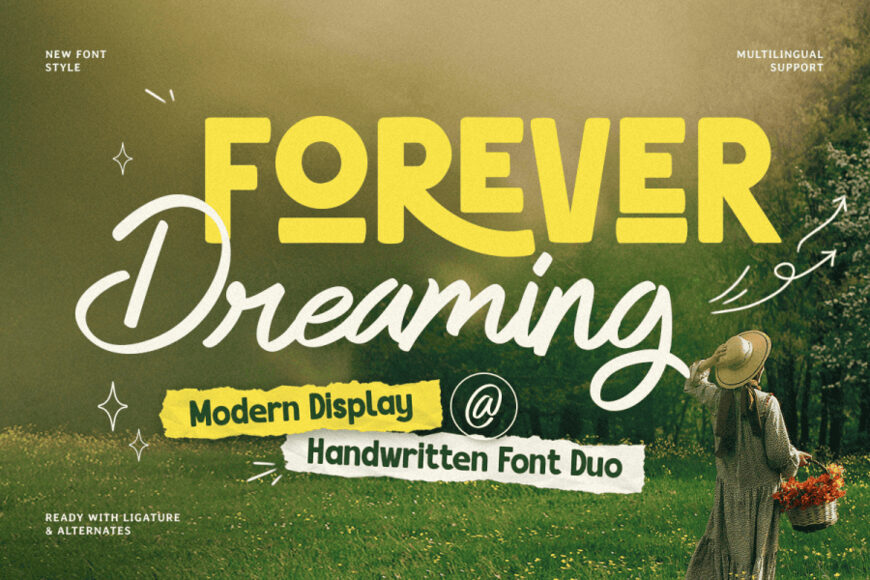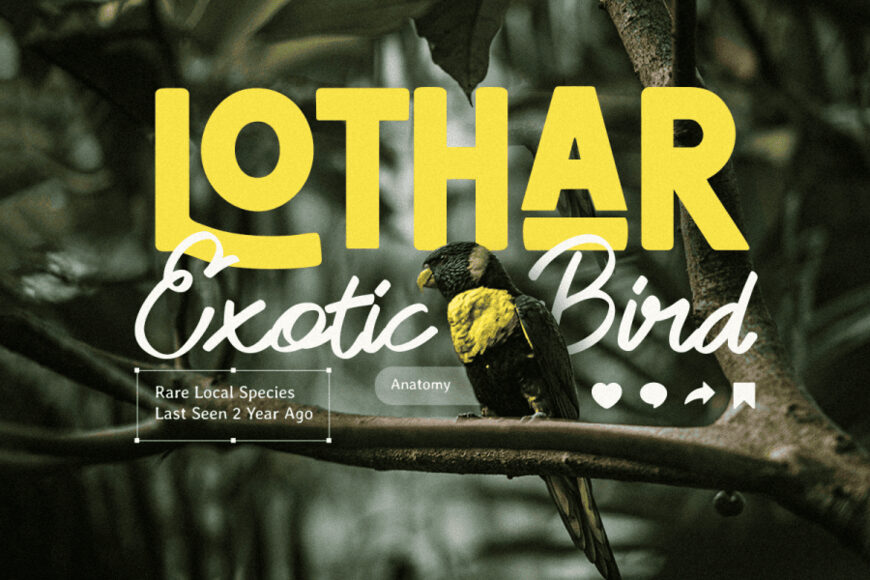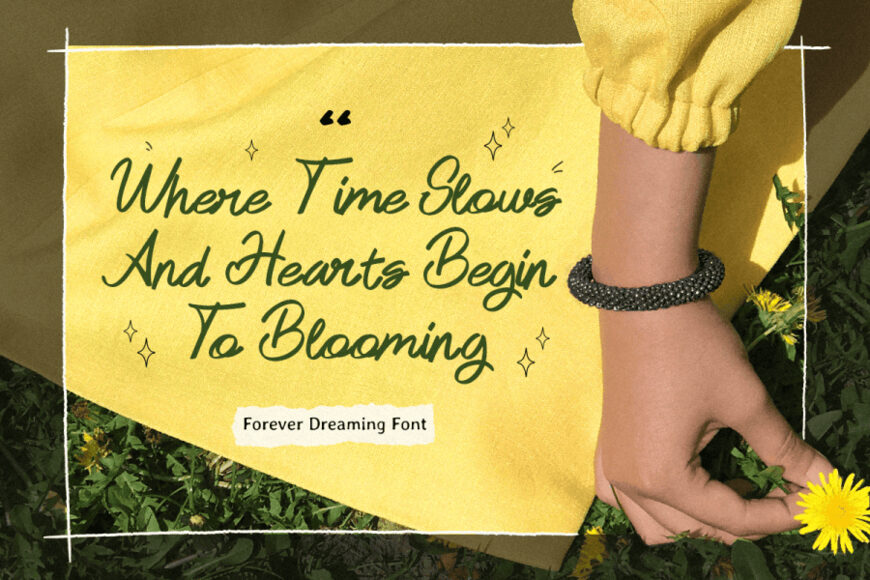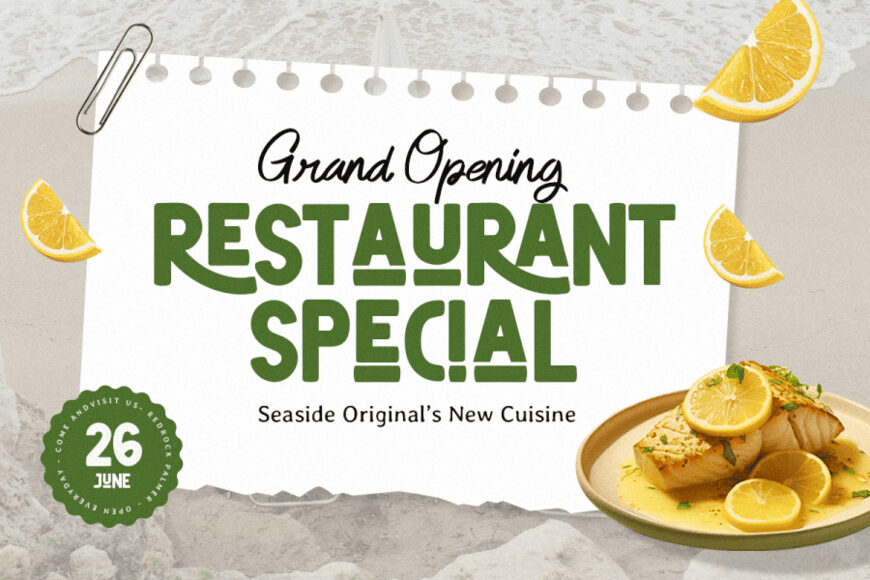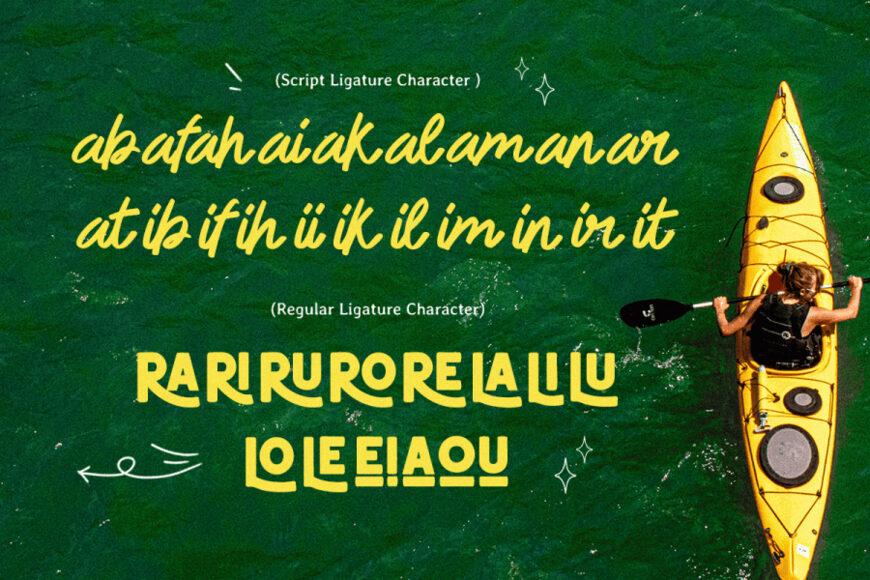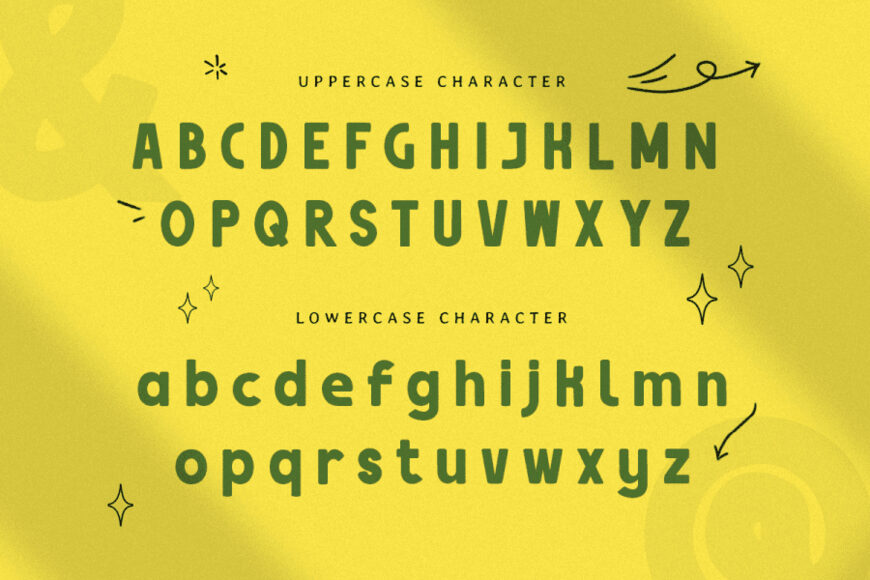
Forever Dreaming Font Duo
Forever Dreaming is a modern display handwritten font duo that combines expressive handwriting with a stylish display character. Designed with a dreamy and artistic feel, this font pairing creates a beautiful balance between elegance, personality, and contemporary design.
Perfect for luxury branding, wedding invitations, logos, packaging, social media graphics, quotes, and editorial projects, Forever Dreaming brings a romantic and creative atmosphere to every layout.